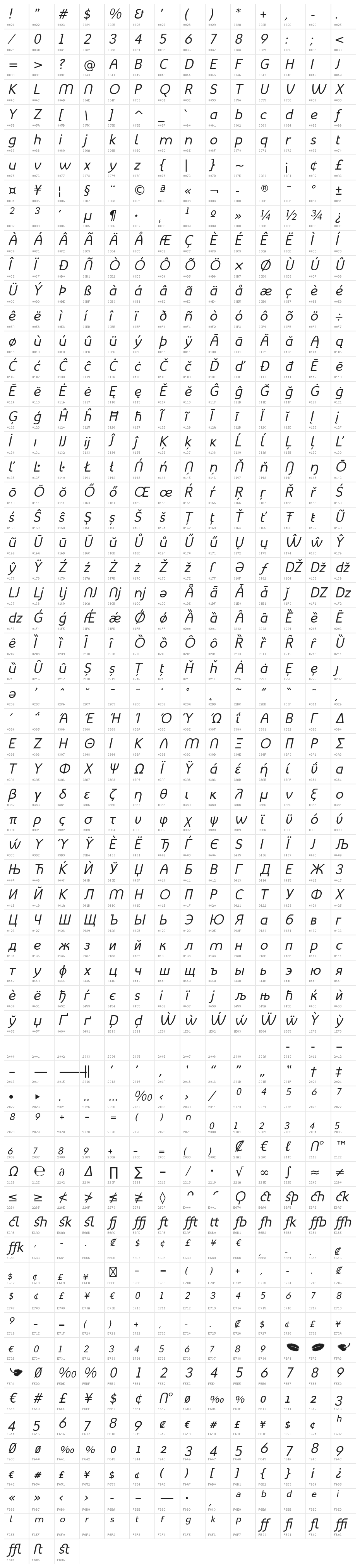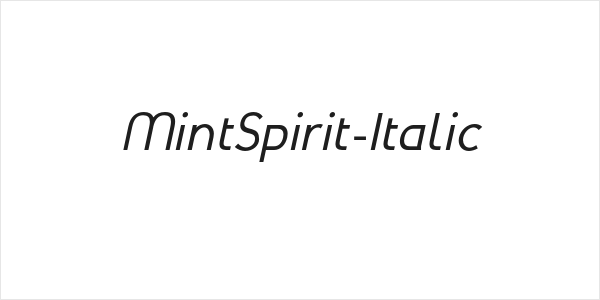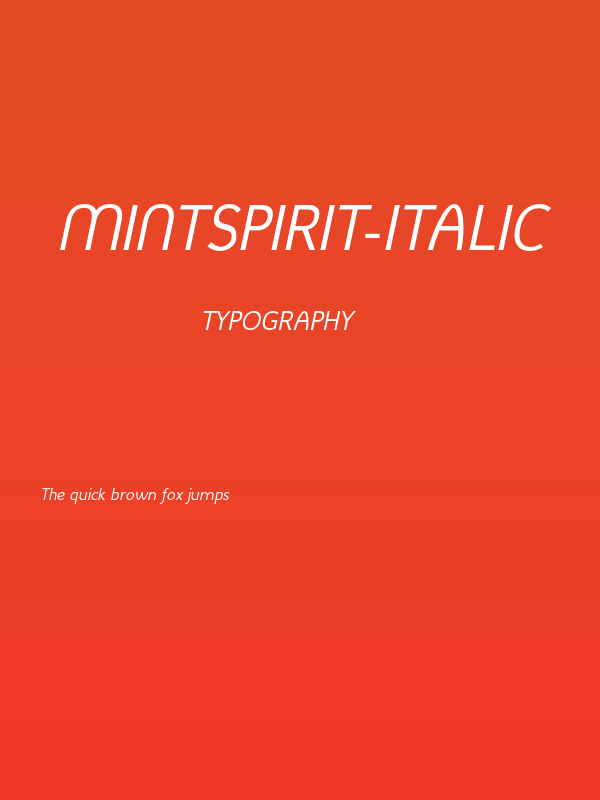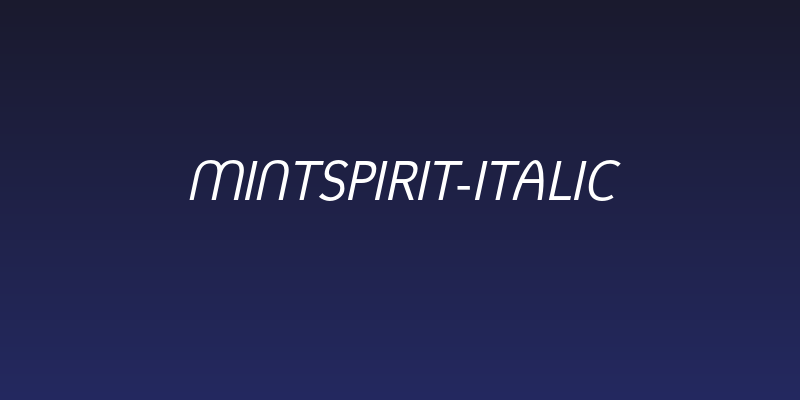
MintSpirit-Italic Font
MintSpirit-Italic Description
This font features a sleek and modern design with a slight italic slant, giving it a dynamic and elegant appearance. The characters are well-proportioned with a consistent stroke width, providing a clean and polished look. The uppercase letters are tall and slightly narrow, while the lowercase letters maintain a smooth and flowing style. The numerals are clear and easy to read, complementing the overall aesthetic. Special characters are distinct and harmonize well with the rest of the font, making it versatile for various design needs.
| Proposed Projects | Ideal for branding, advertising, and editorial design projects where a modern and stylish look is desired. |